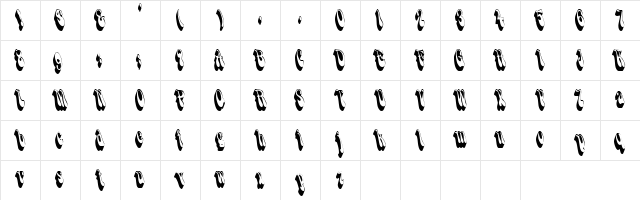
FlashbackCondensed Regular Font Preview
FlashbackCondensed Regular
Design Context for FlashbackCondensed Typeface
FlashbackCondensed is a composed and adaptable typeface that performs quietly and consistently across a wide range of design contexts. The condensed width makes it efficient for tight spaces without sacrificing legibility.